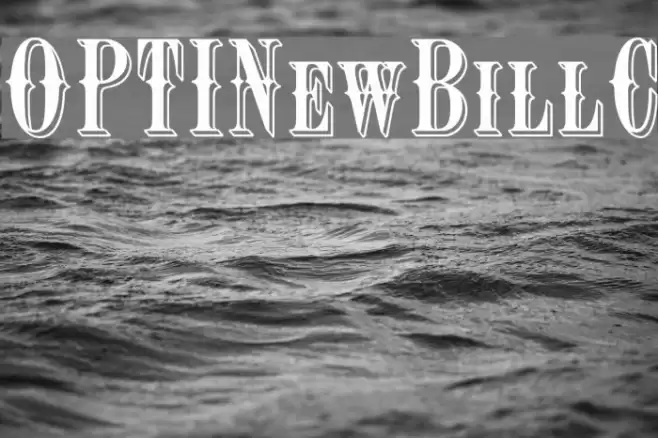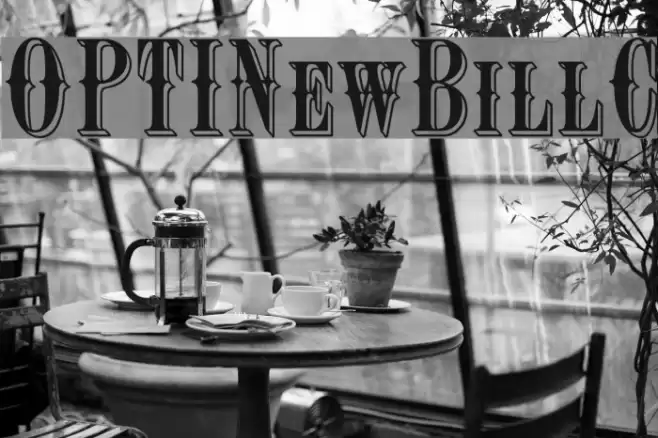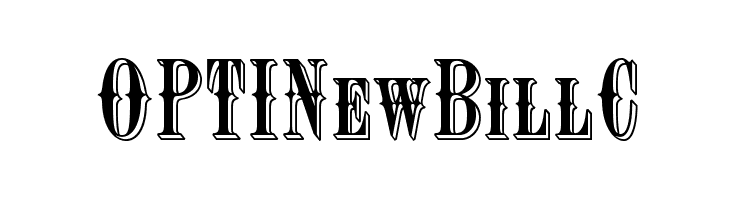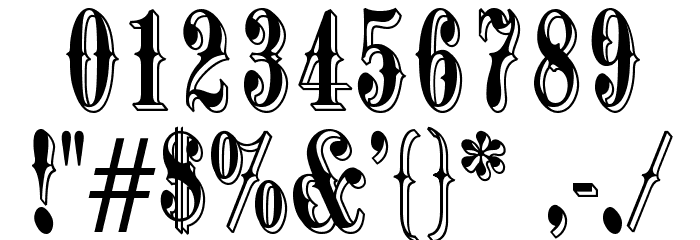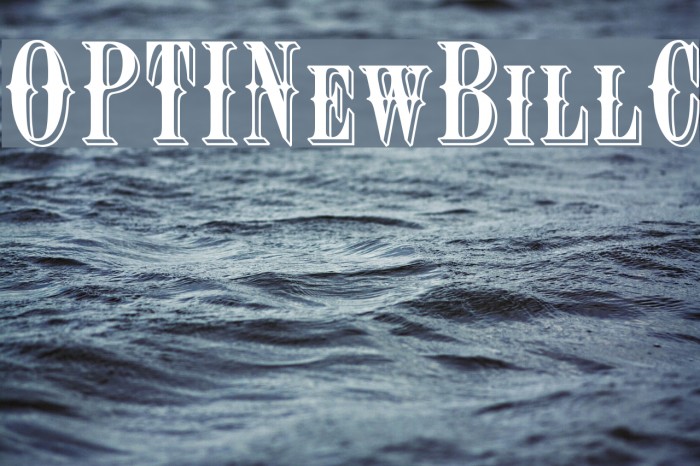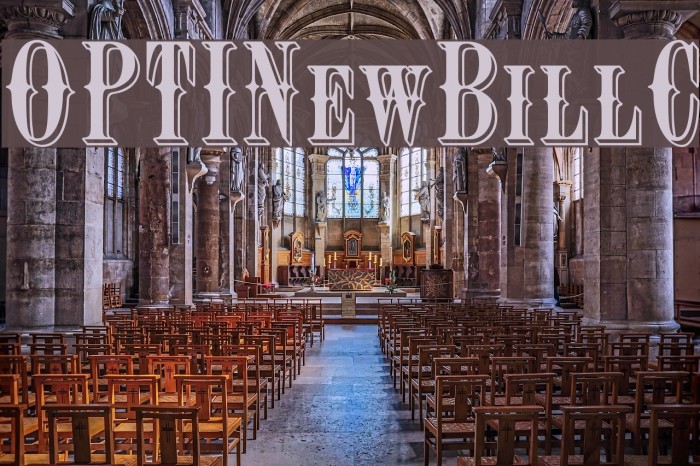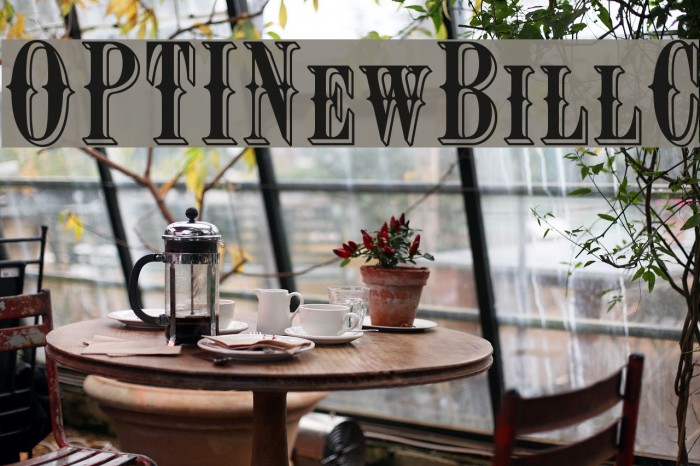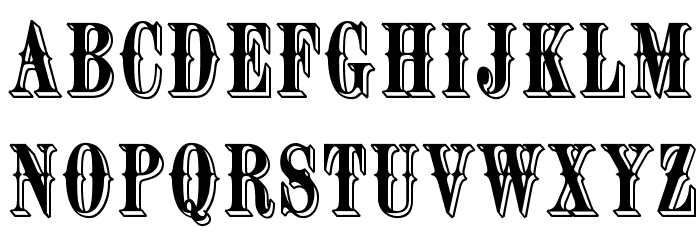
OPTINewBillC Font
OPTINewBillC Description
This font features a bold and decorative style with a strong presence. Each character is designed with a three-dimensional effect, giving it a shadowed appearance that adds depth and complexity. The uppercase letters are particularly striking, with intricate detailing that makes them stand out. The numbers and special characters maintain this elaborate style, ensuring consistency across the font. The overall design is reminiscent of vintage signage or posters, making it ideal for projects that require a touch of nostalgia or a bold statement. The font's unique characteristics make it suitable for creative and artistic applications.
A bold, decorative font with a vintage, three-dimensional style from Uncategorized fonts.
- Proposed Projects: Ideal for vintage posters, signage, branding, and creative artistic projects.
- Overall Style: Vintage, Decorative